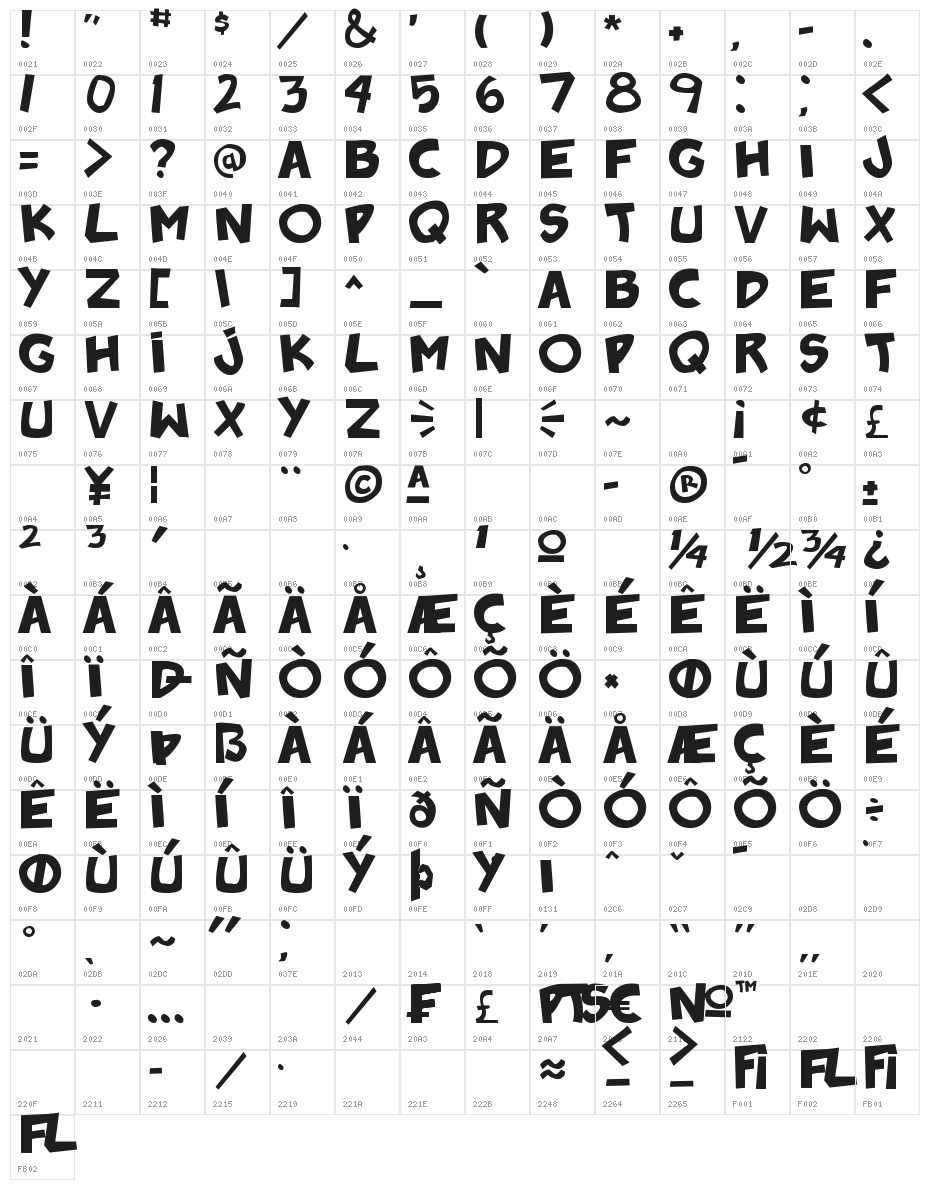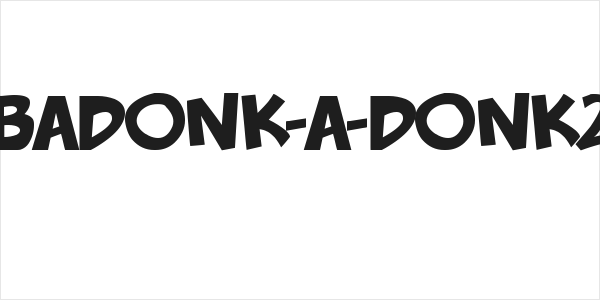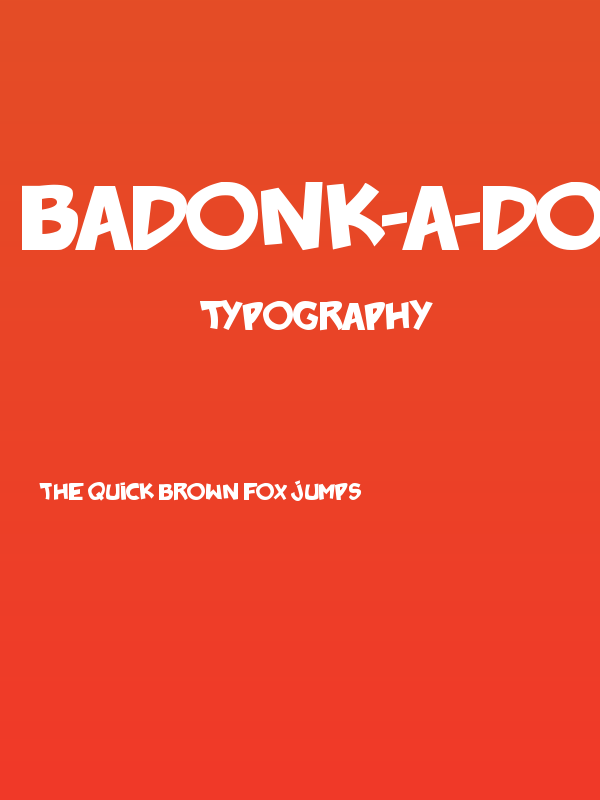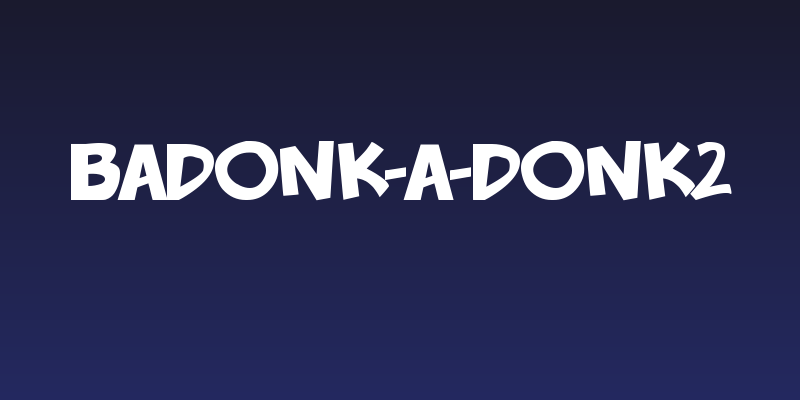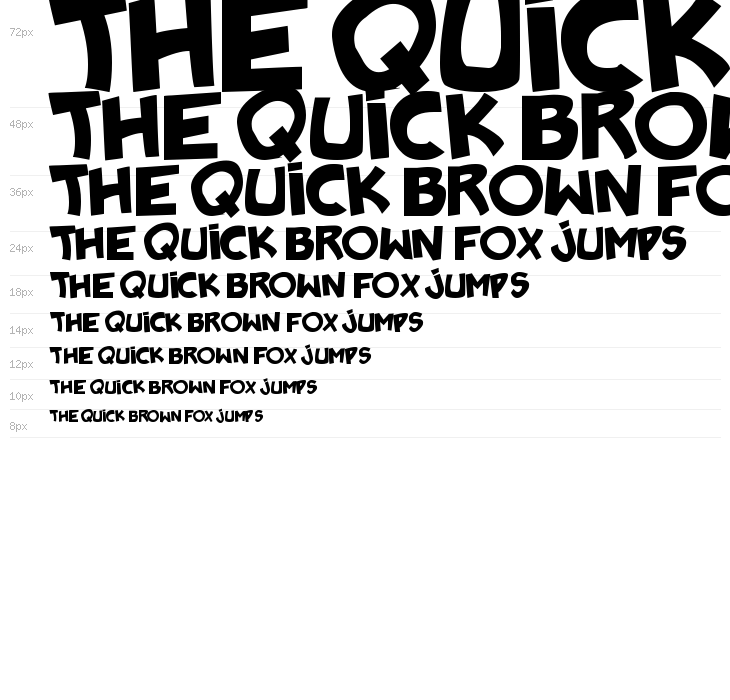
badonk-a-donk2 Font
badonk-a-donk2 Description
This font features a bold and playful design with exaggerated, uneven strokes that give it a lively and dynamic appearance. The characters are slightly tilted and vary in width, adding a sense of movement and energy. The uppercase and lowercase letters maintain a consistent style, with rounded edges and a cartoonish flair. The numbers and special characters follow the same whimsical design, making the font suitable for creative and informal applications. Its unique style makes it stand out, perfect for projects that require a fun and engaging typeface.
Overall StylePlayful, Cartoonish
Proposed ProjectsIdeal for children's books, comic strips, playful branding, and party invitations.